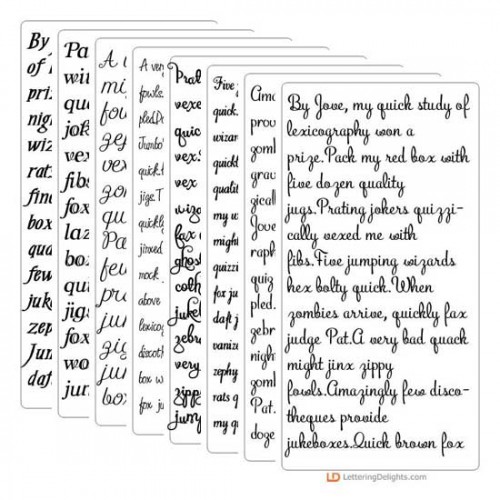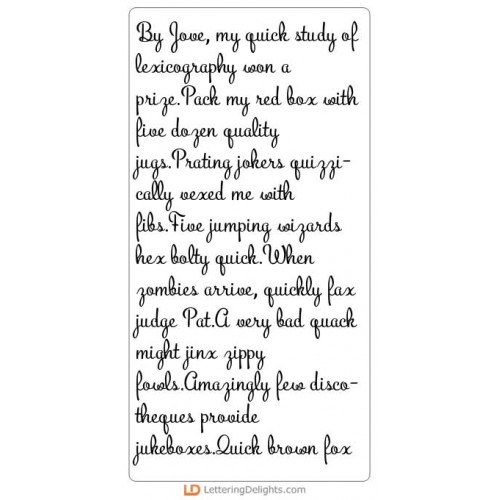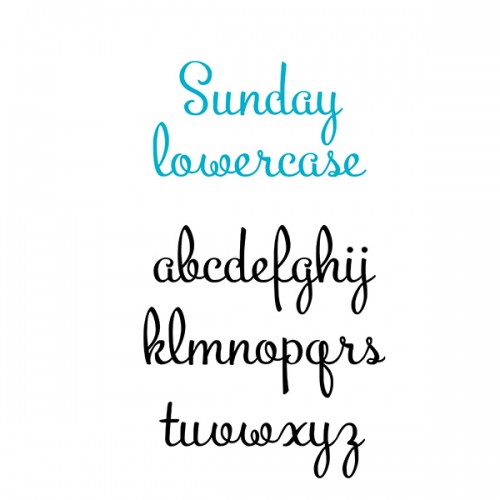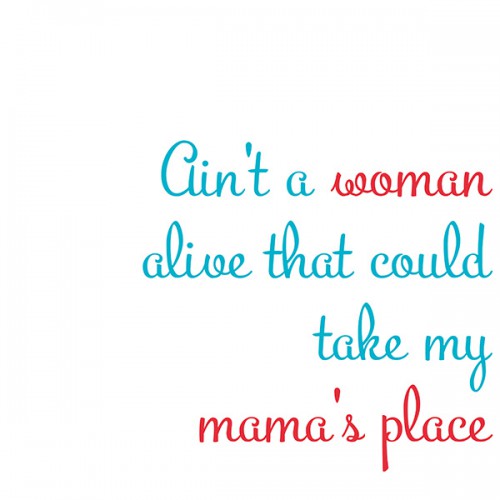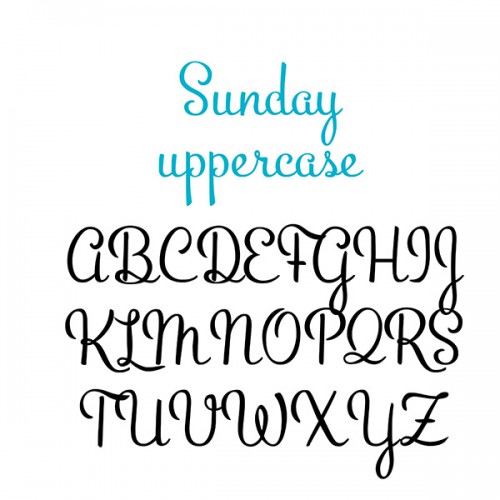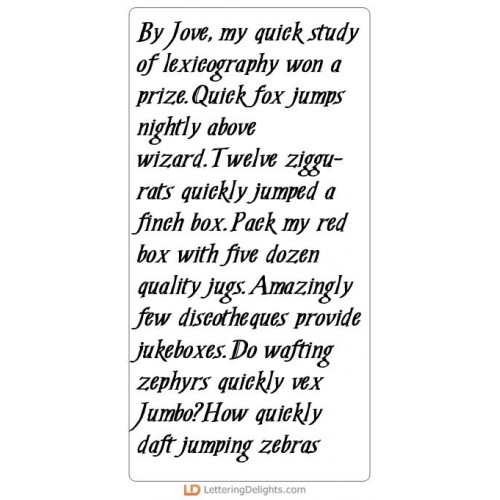
2. Beautiful Scripts - FB
Beautiful Scripts - FB
SNF Sunday - FN
This is a practical and popular script that is great for any occasion...
LD White Knight - FN
This formal font is a cross between calligraphy and script...
ZP Light Painter - FN
This beautiful serif font is almost a script...
SNF Happily Ever After - FN
This script font is fresh and beautiful and perfect for any occasion...
PN Queen Hippolyta - FN
This handwriting script font works great for journaling or letter writing...
ZP Moonshine for Lucy - FN
This script font is a cousin of ZP Catawampus but is a little bit more extreme...
LD Most Grand Script - FN
This is a formal script that looks great for formal ocassions...
SNF Sunday Alternate - FN
This sister font of SNF Sunday has alternate letters. Use both fonts together for best results...
ZP Cressandra - FN
This font is a cross between handwriting and scripts. Great for any ocassion...
ZP Romantic Wife - FN
This extreme cursive font has very flourished ascenders and descenders...